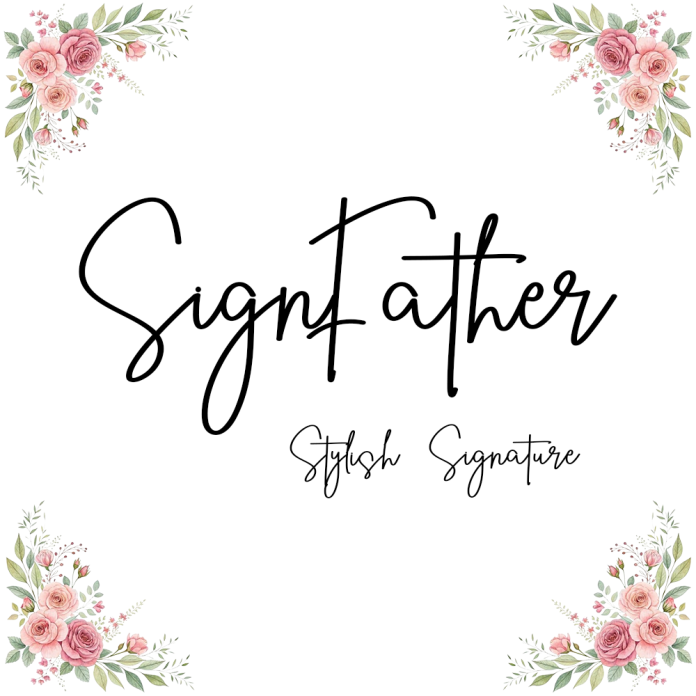
Sign Father Font is a clean and fresh sans-serif font. The sleek characters make this font ideal for eye-catching designs. You can use it for headlines, t-shirt typography, banners, product labels, and much more.